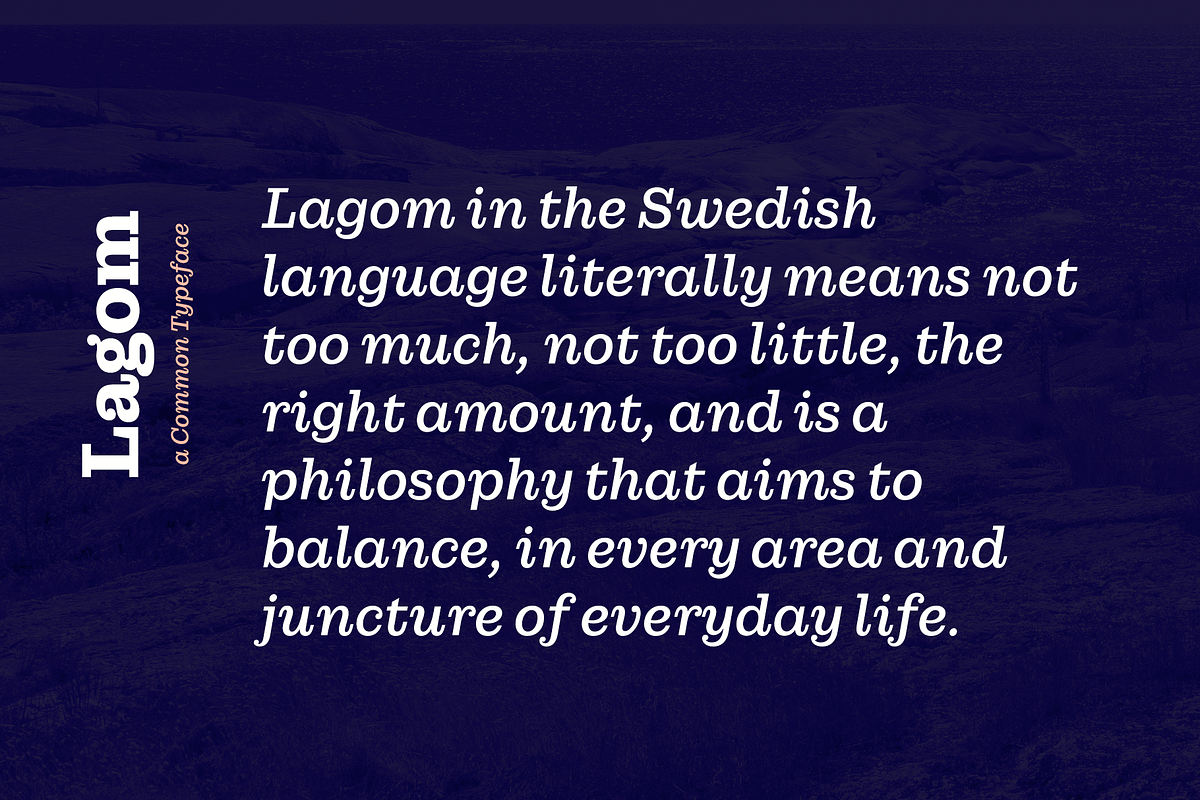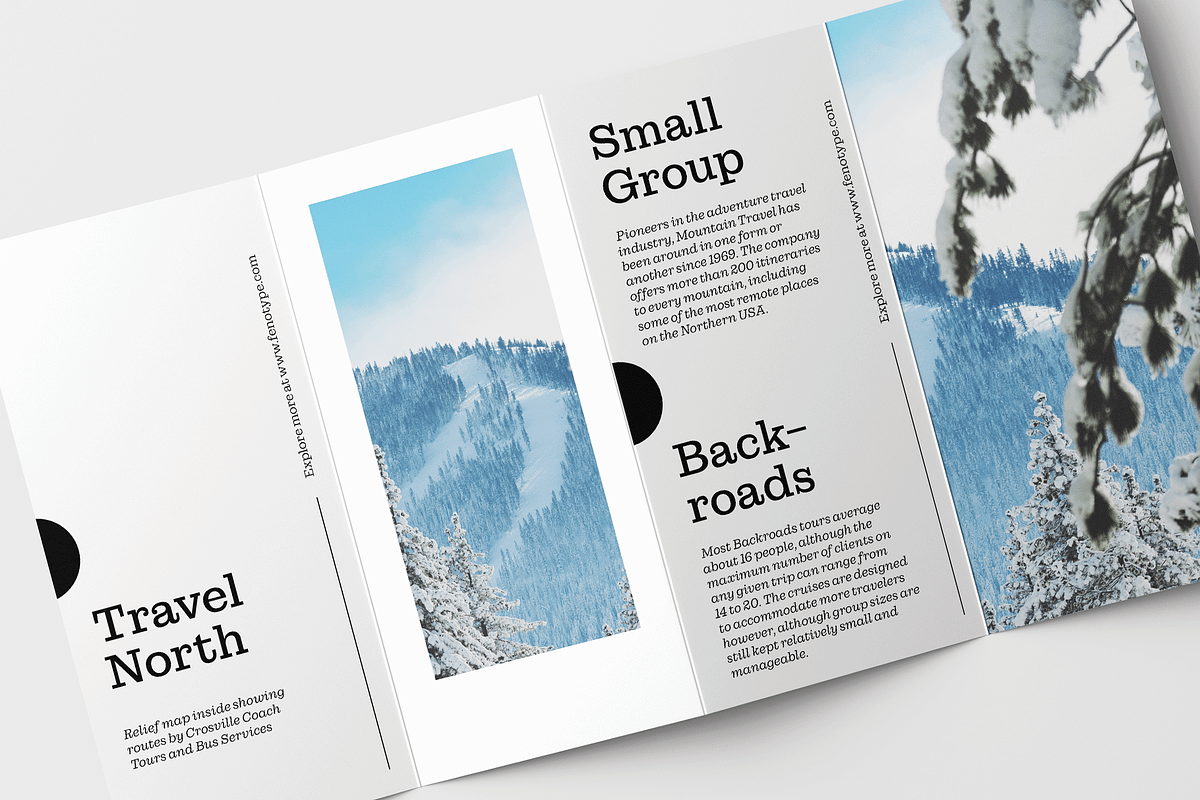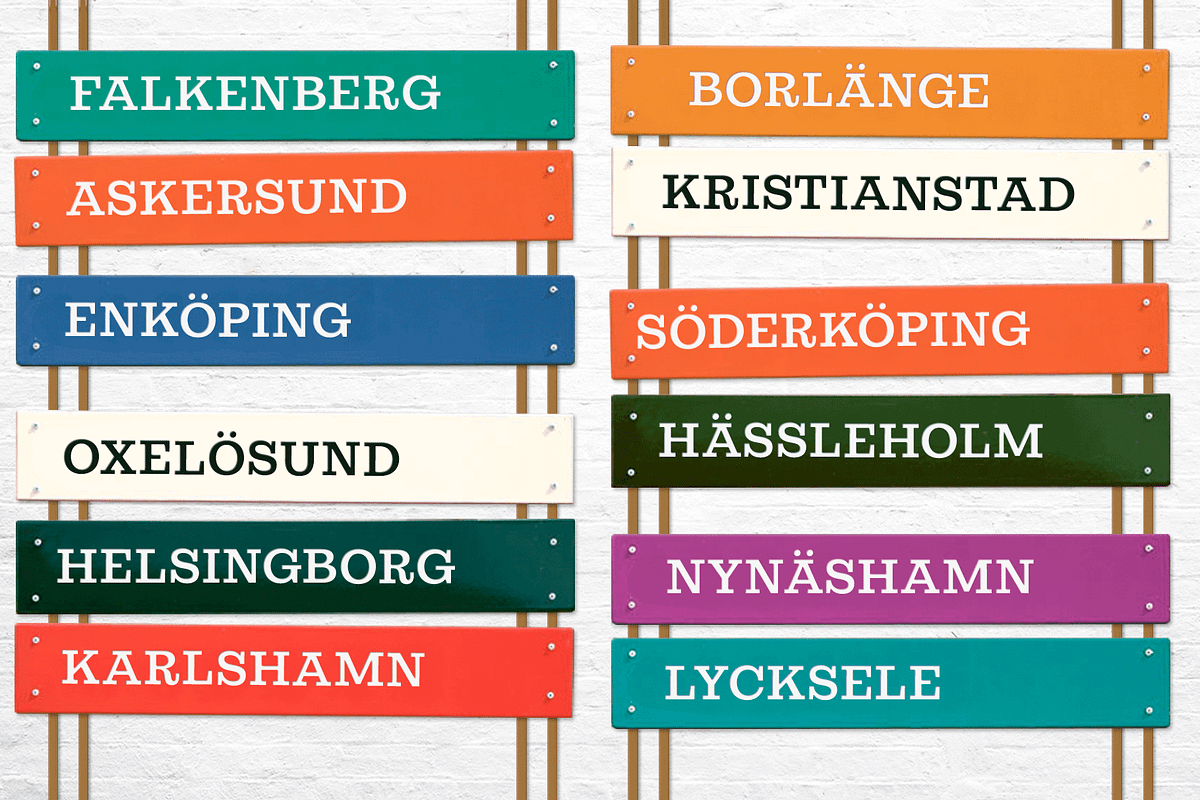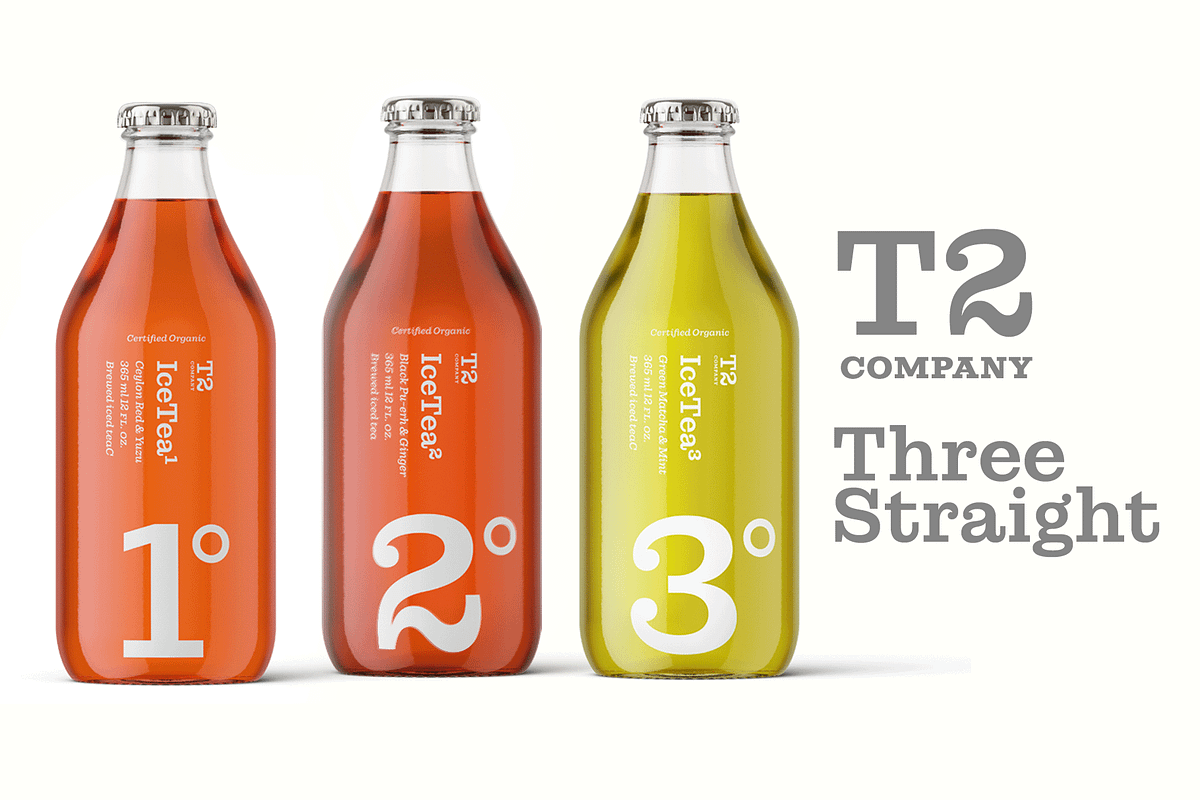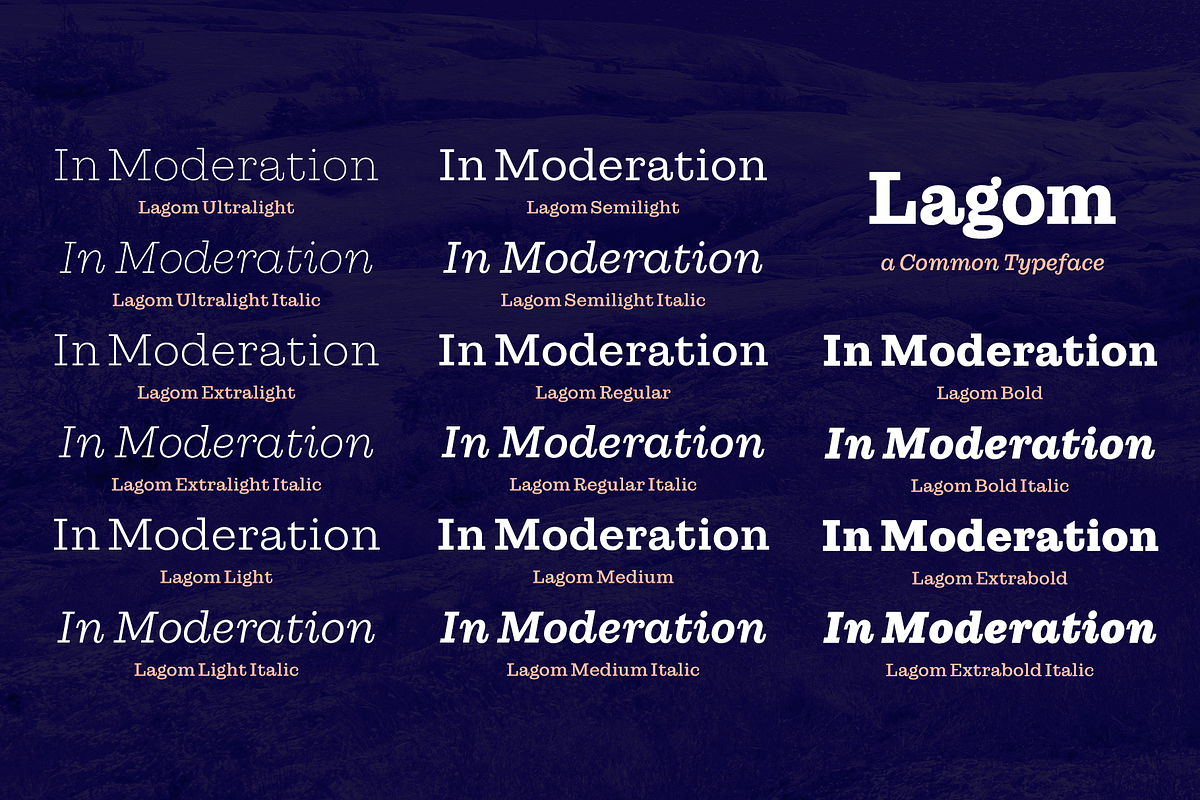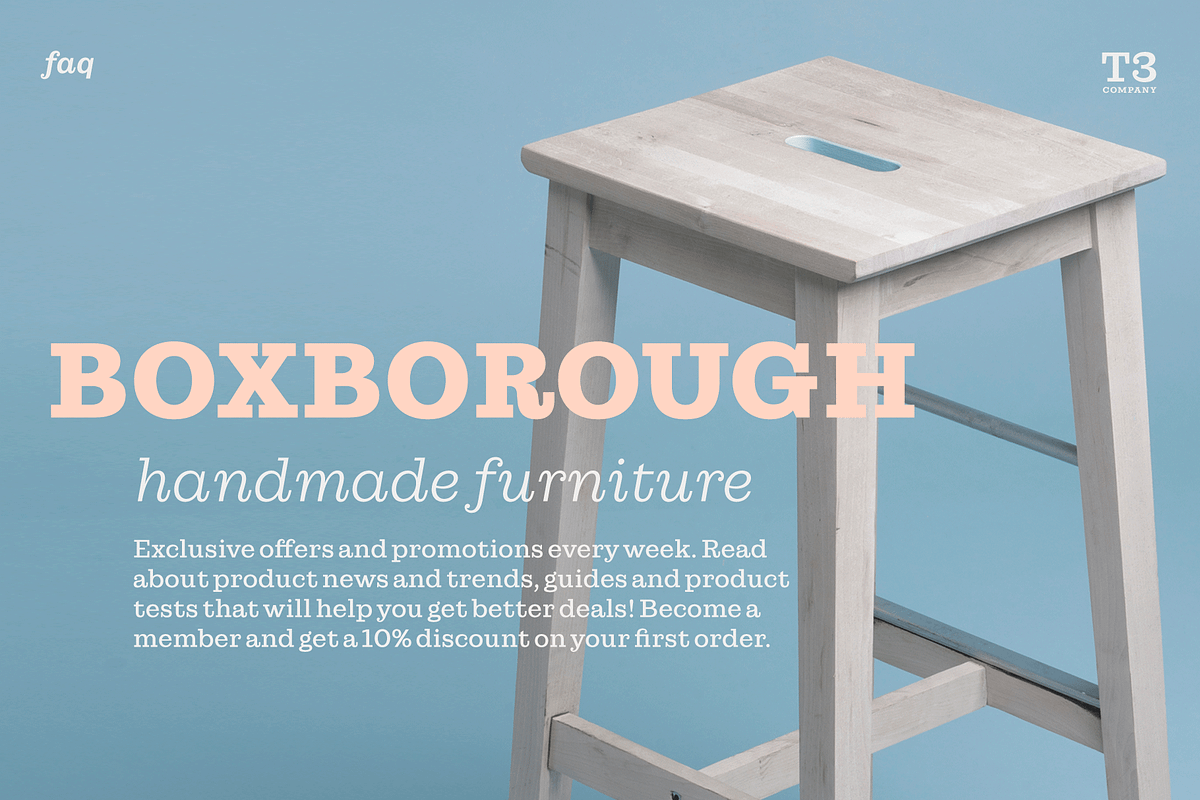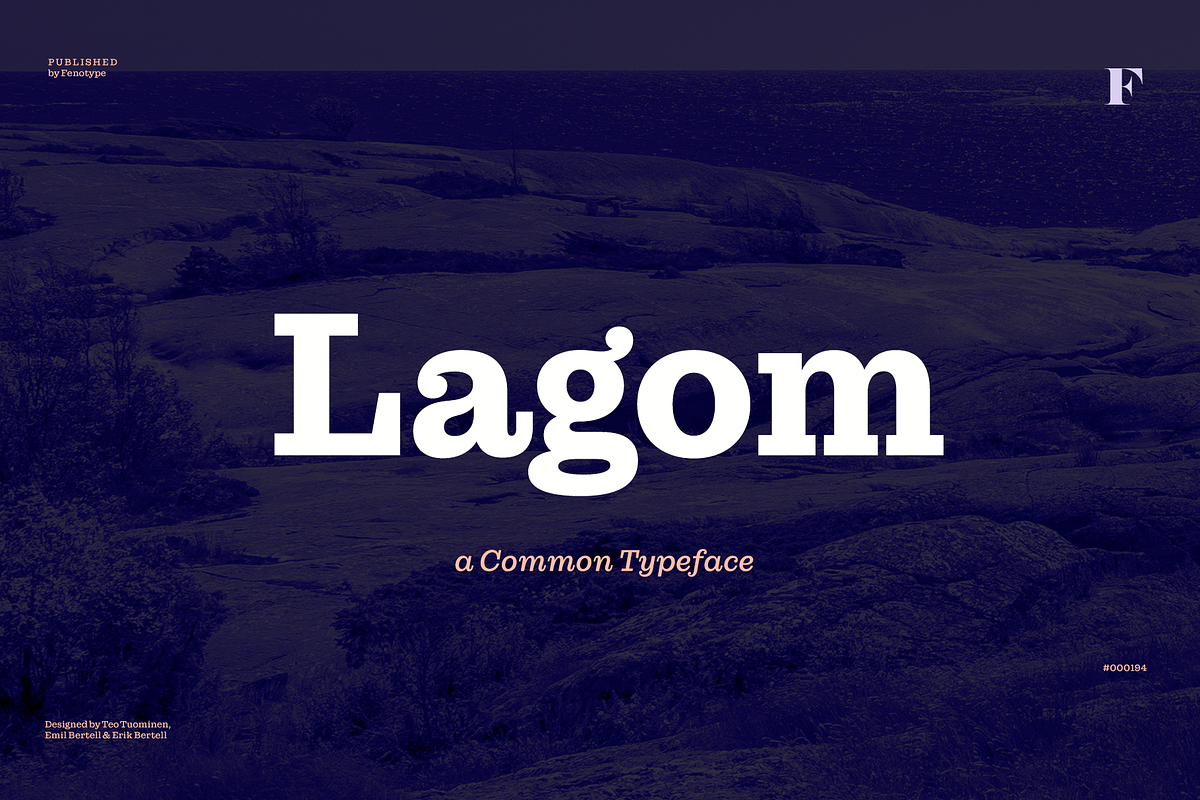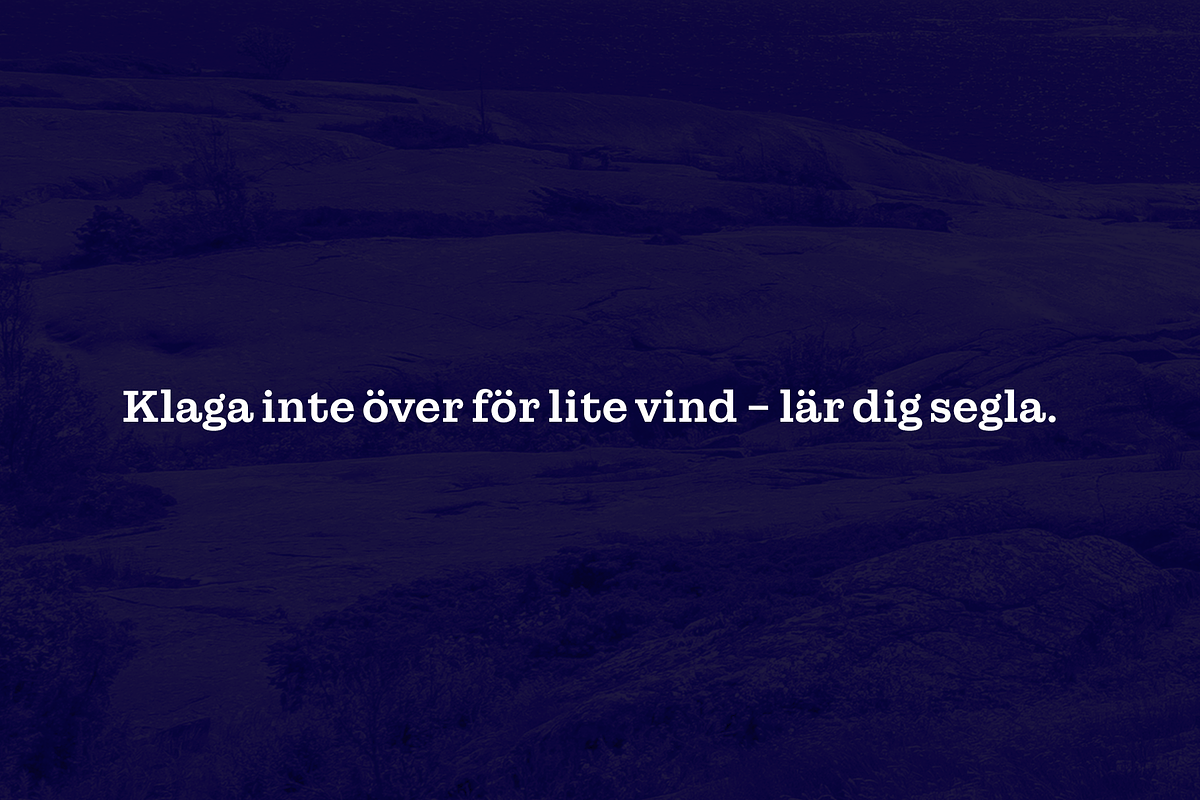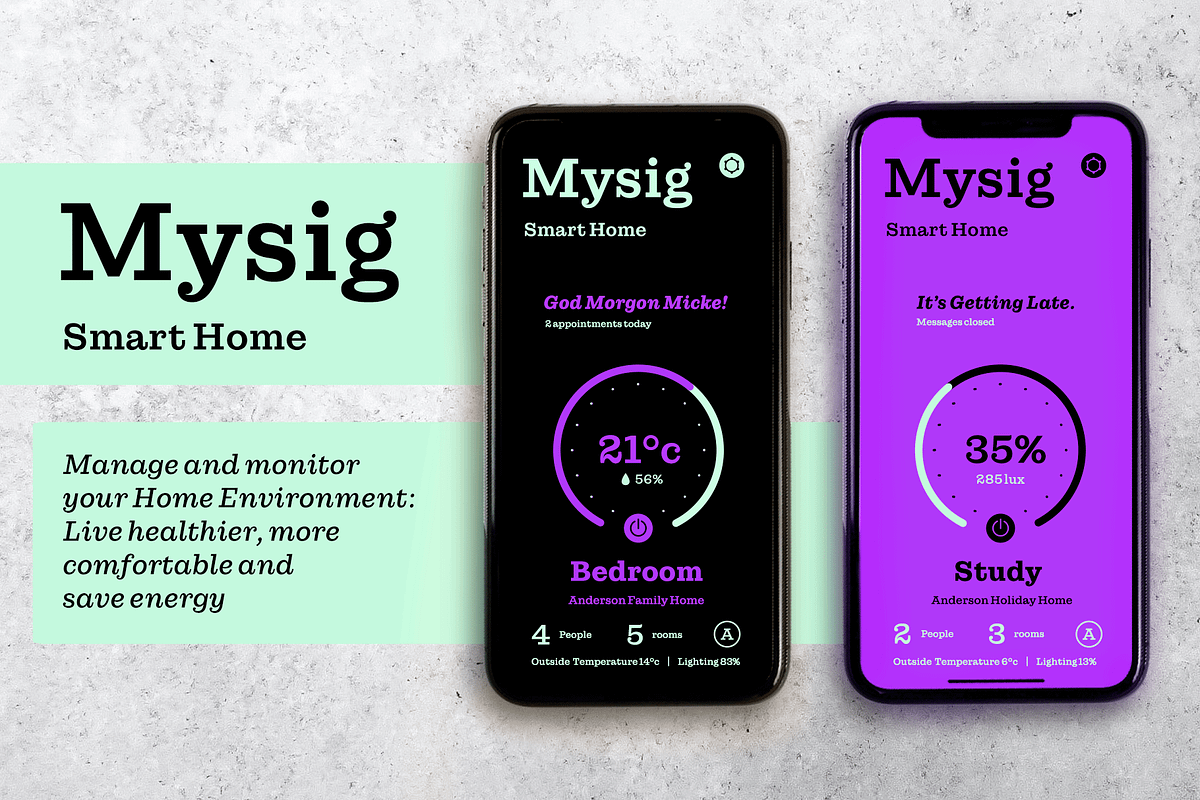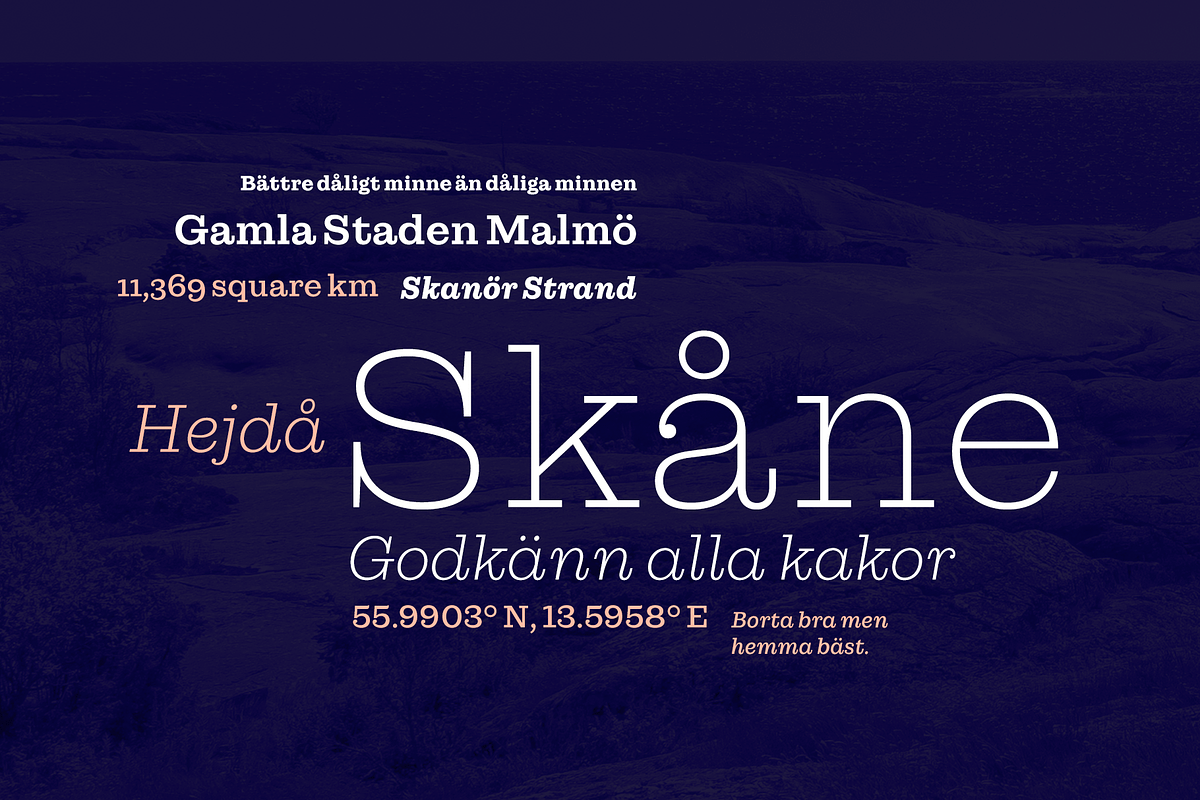
Do you find some of the contemporary fonts just a tad too cool, restrained – even arrogant in their appearance? Here’s something to charm your worried clients with – Lagom, a polite and diplomatic type family. Use Lagom and you’ll be able to reach just that fine line between sophistication and mundane. The font family works really well with FMCG (fast moving consumergoods) products, restaurant identities and menus or way finding systems – you could even try it on a mobile app for that more human, ease-of-approach feel. Perfectly adept for contemporary needs, Lagom fonts come with smart Open Type features and the family is kept just the right sized – not too vast, not too compact. Make your designer life easier with Lagom!